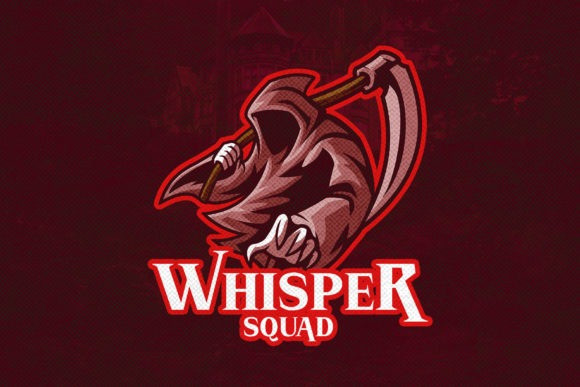
Aschor Font
Aschor is an incredibly cool and unique display font. It has a modern yet whimsical style and it will undoubtedly immerse your designs into a magical world.